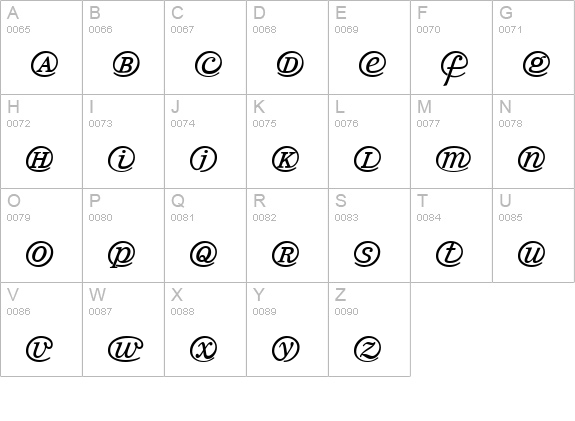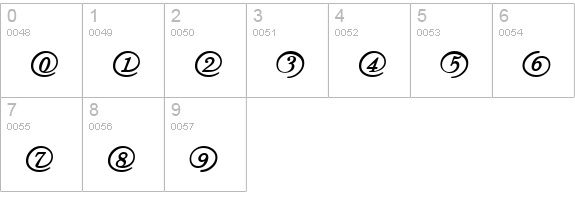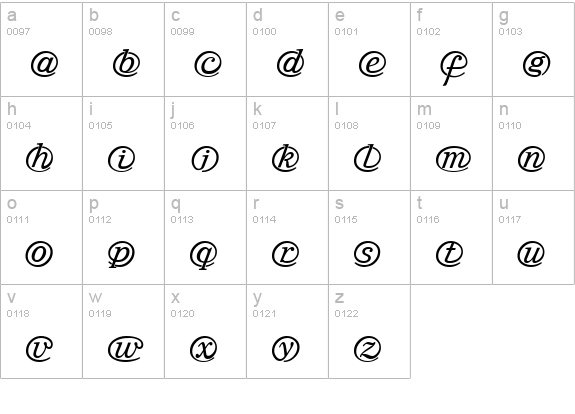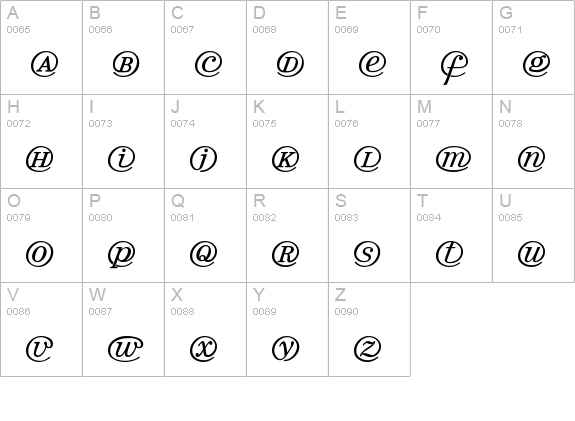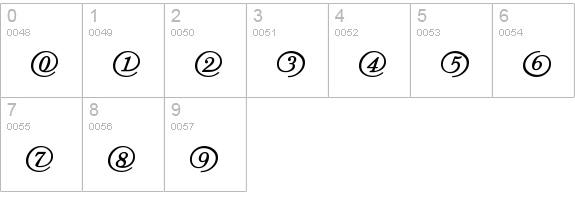
Arrobatherapy Font Details
Arrobatherapy font is a delightful and whimsical typeface that brings a sense of playfulness to any design project. With its unique and charming letterforms, this font is perfect for adding a touch of fun and creativity to your creations. Whether you're designing invitations, posters, or social media graphics, Arrobatherapy font is sure to make a statement. What makes Arrobatherapy font even more appealing is that it is completely free! That's right, you can download this fantastic font at FontsMarket.com without spending a penny. Don't miss out on the opportunity to enhance your designs with the joyful spirit of Arrobatherapy font. Download it now and let your creativity shine!